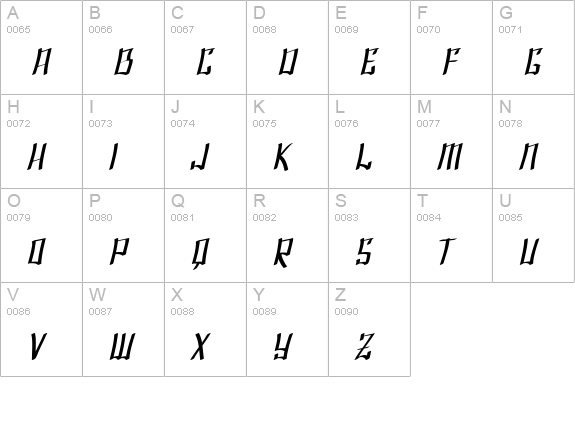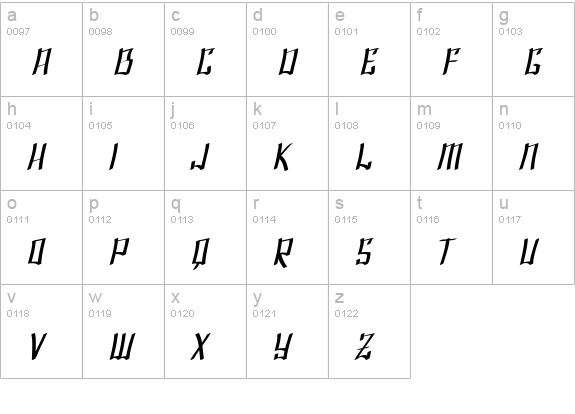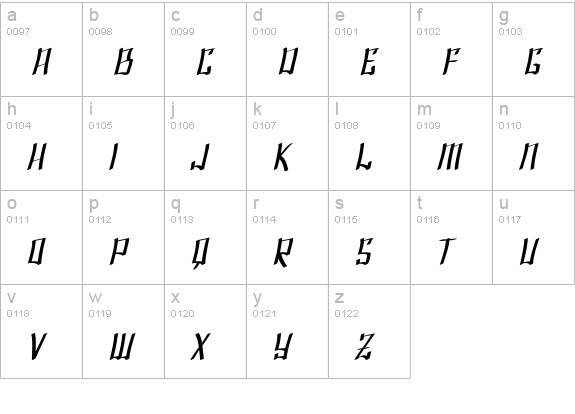
SF Shai Fontai Extended Oblique Font Details
SF Shai Fontai Extended Oblique is a distinctive, extended-width, italic variant in the SF typeface family \xE2\x80\x94 well suited to design and typography projects.
SF Shai Fontai Extended Oblique font is a unique and modern typeface that is sure to make a statement in any design project. This font is perfect for adding a touch of sophistication and elegance to your work. With its slanted and extended letterforms, SF Shai Fontai Extended Oblique font exudes a sense of movement and fluidity, giving your designs a dynamic and contemporary look. What makes SF Shai Fontai Extended Oblique font even more appealing is the fact that it is freely available to download at FontsMarket.com. Yes, you read that right - this amazing font can be yours for free! Whether you're a professional designer or just someone who loves experimenting with typography, SF Shai Fontai Extended Oblique font is a must-have in your font collection. With its extensive character set and versatile design, SF Shai Fontai Extended Oblique font is suitable for a wide range of design projects. From logos and branding to packaging, posters, and social media graphics, this font will elevate your designs and captivate your audience. The clean and crisp lines of SF Shai Fontai Extended Oblique font make it highly legible, even at smaller sizes, ensuring that your message is conveyed with clarity and impact. The subtle slant of the letterforms adds a touch of personality and style, making this font perfect for creating eye-catching headlines and titles. So why wait? Head over to FontsMarket.com and download SF Shai Fontai Extended Oblique font for free today. Give your designs that extra edge and let your creativity shine with this exceptional typeface.